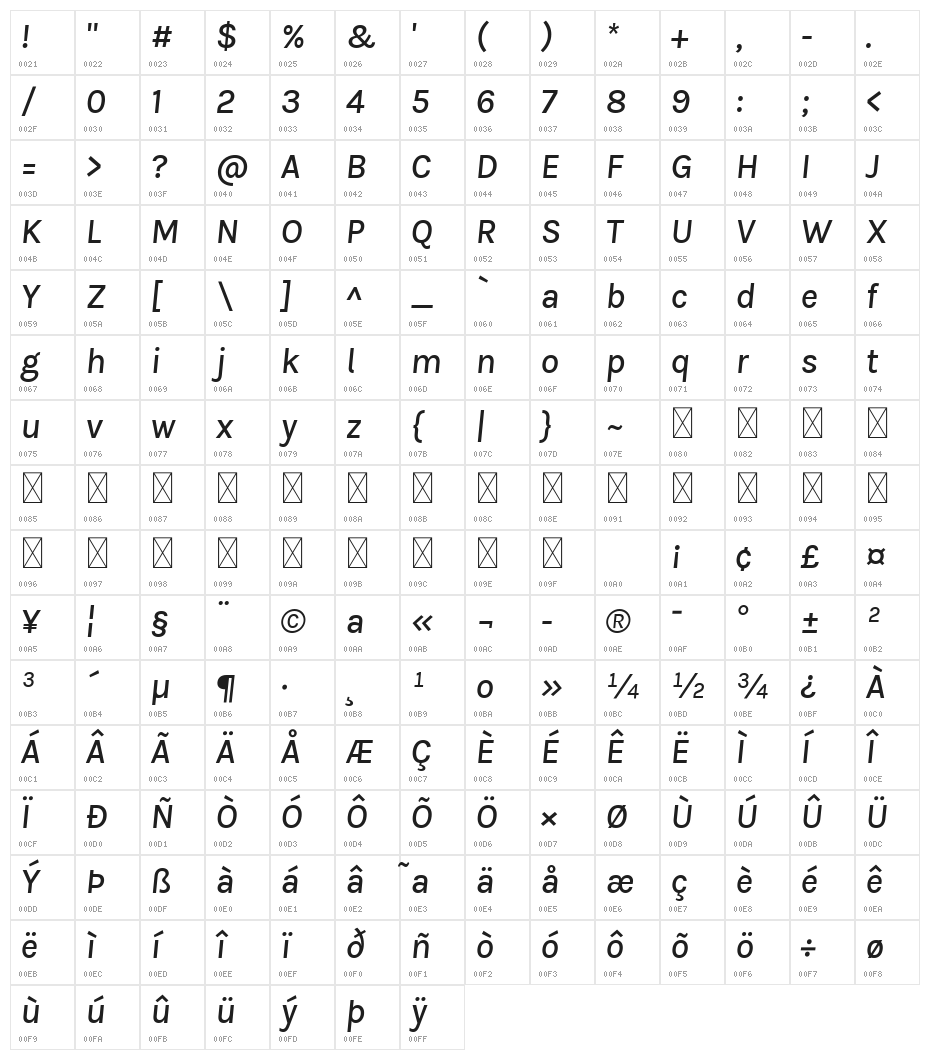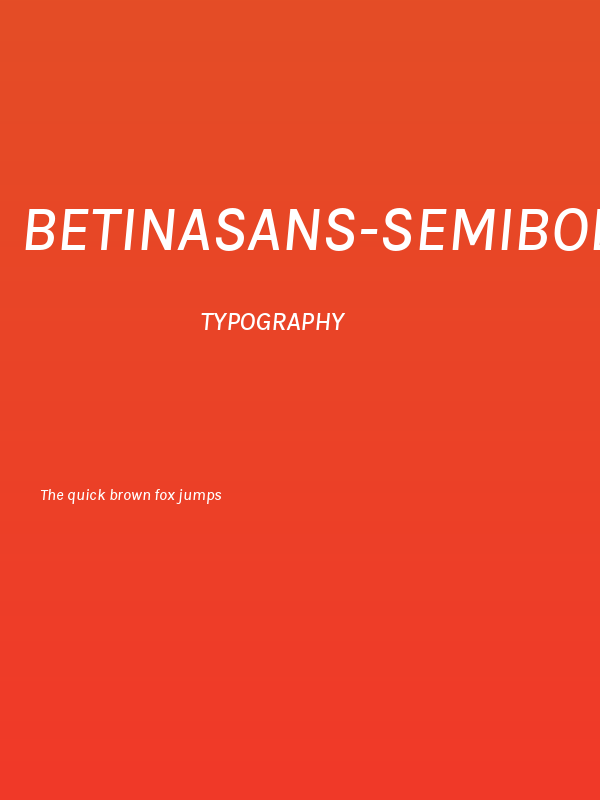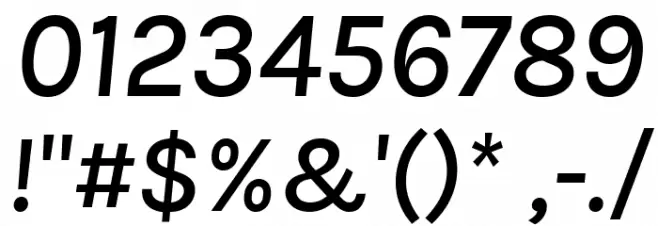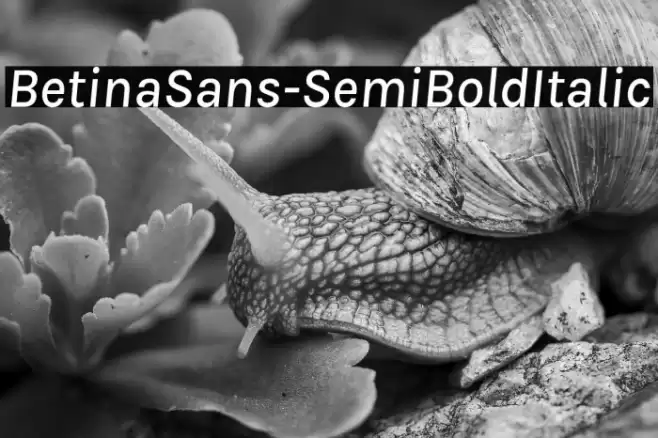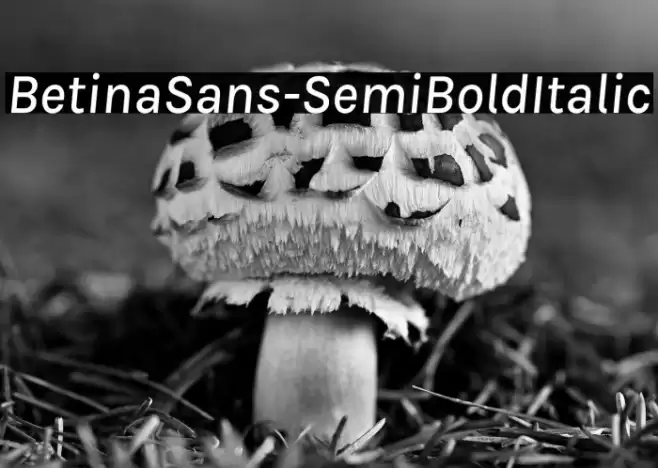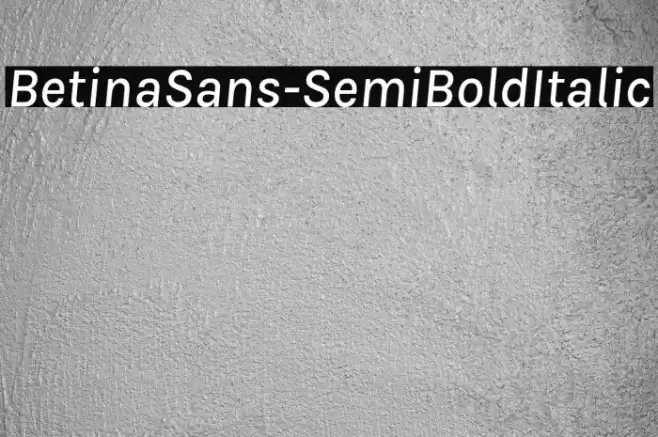
BetinaSans-SemiBoldItalic Font
BetinaSans-SemiBoldItalic Description
This font features a clean and modern sans-serif style with a semi-bold weight, providing a strong yet approachable appearance. The italicized form adds a dynamic and forward-leaning feel, making it suitable for contemporary designs. The characters are well-proportioned, with a slight slant that enhances readability while maintaining a sleek aesthetic. The numbers and special characters are consistent with the overall design, ensuring a cohesive look across different uses. The font's versatility makes it ideal for a wide range of applications, from digital media to print.
| Use Case | Headlines, Body text, Logos |
| Proposed Projects | Ideal for branding, advertising, web design, and editorial layouts. |